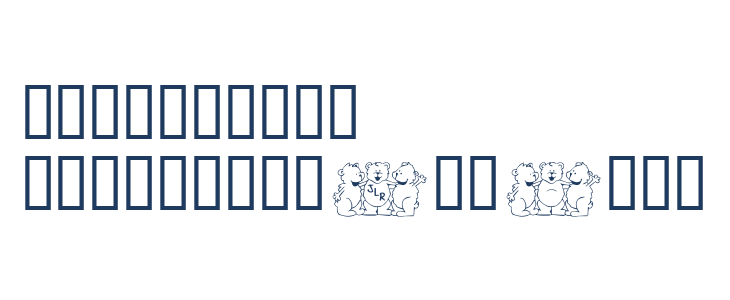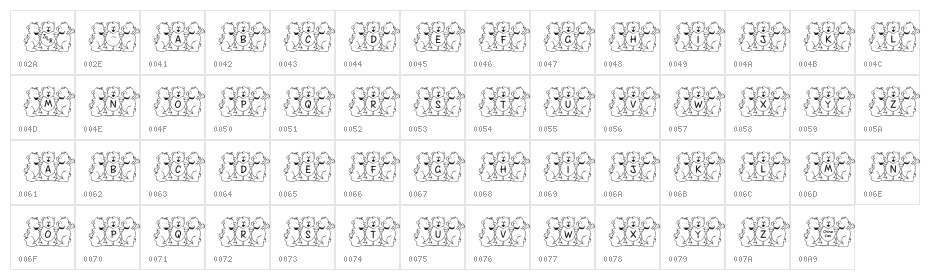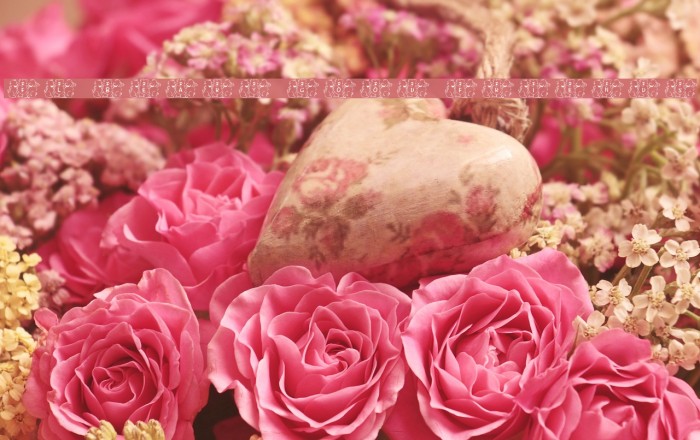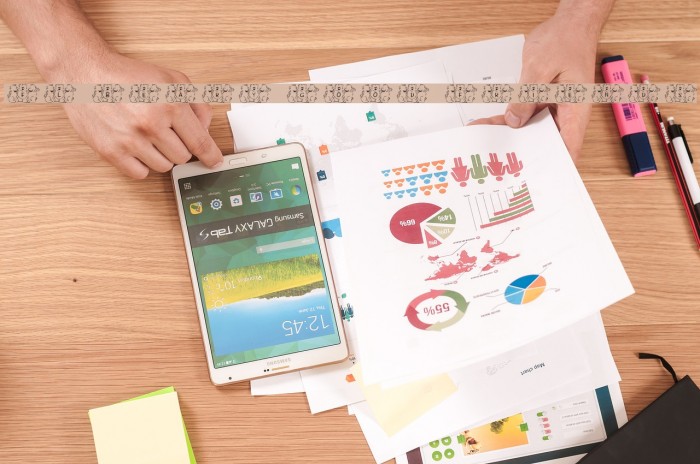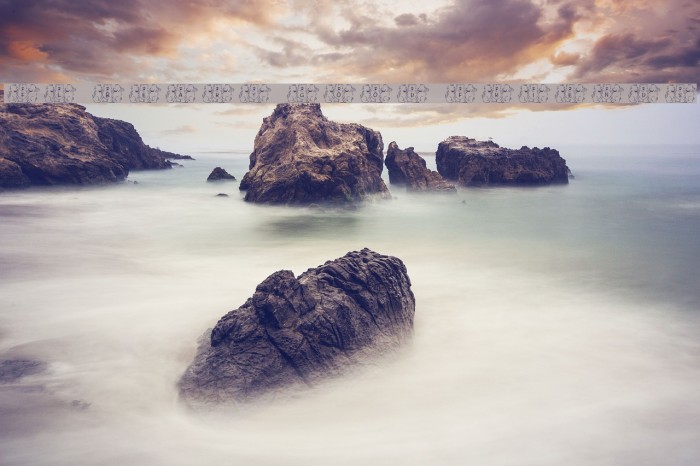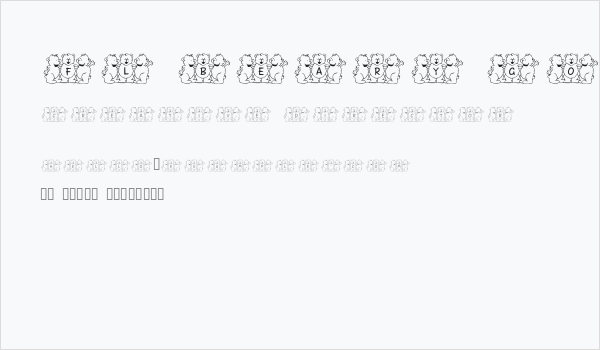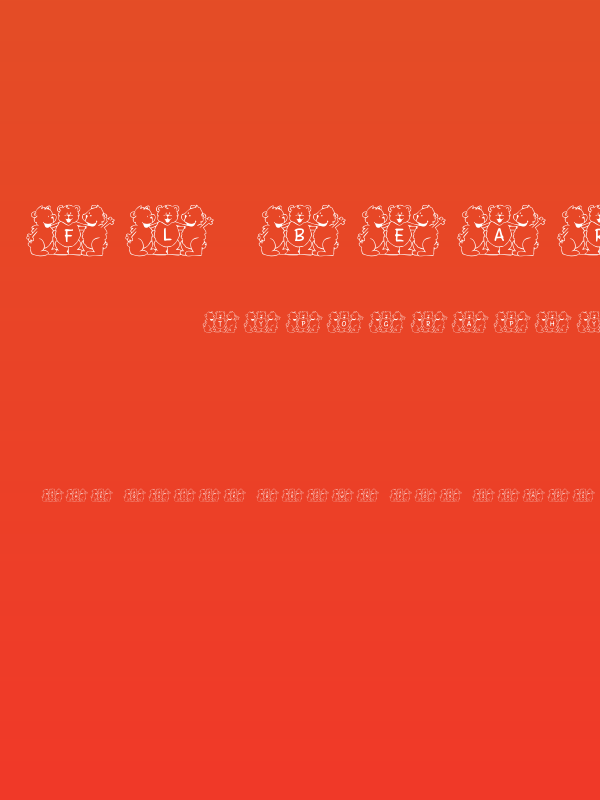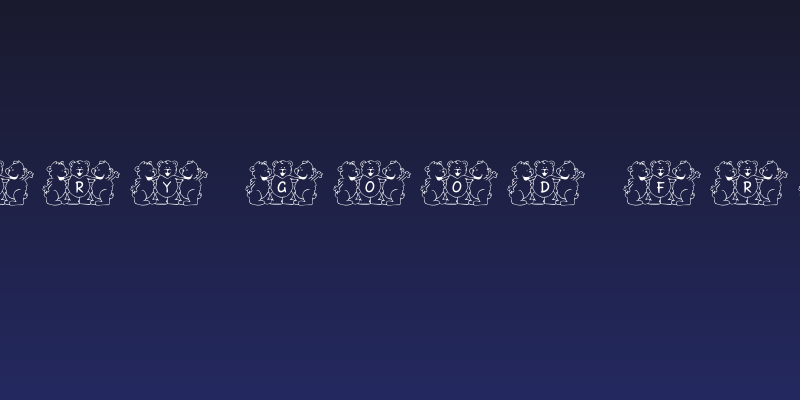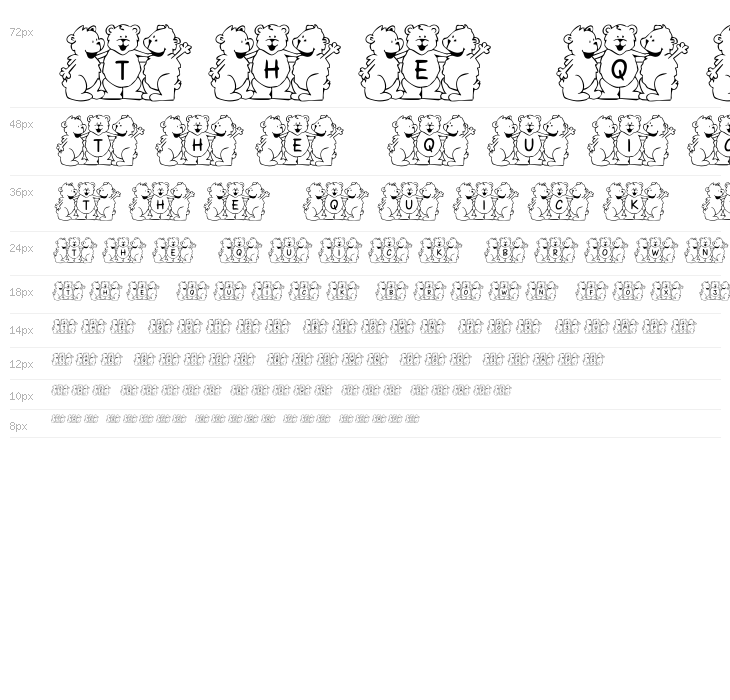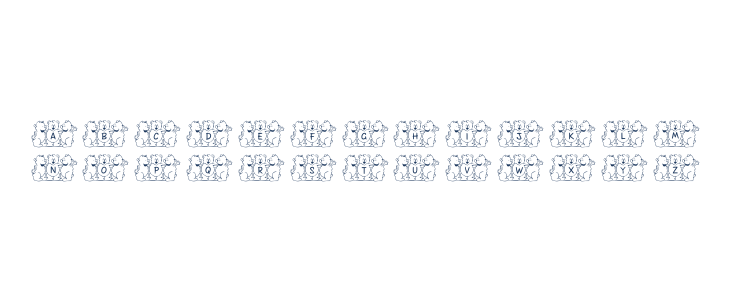
FL Beary Good Friends Font
FL Beary Good Friends Description
This whimsical and playful font features adorable bear characters integrated into each letter, creating a charming and friendly appearance. The design is highly decorative, with each character being a unique illustration of a bear holding or interacting with the letter. This font is perfect for children's projects, adding a sense of fun and warmth. The characters are evenly spaced, ensuring readability while maintaining the playful theme. The font is primarily decorative, making it ideal for headlines or titles rather than body text. Its unique style captures attention and brings a joyful, lighthearted feel to any design.
| Proposed Projects | Ideal for children's books, playful invitations, birthday cards, and educational materials. |